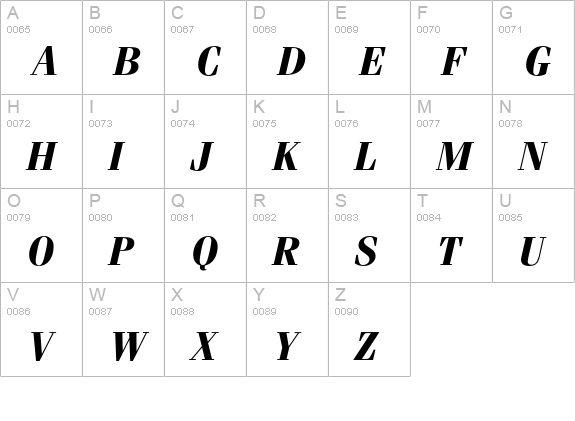
Fenice* Bold Italic is a strong, high-contrast, italic variant in the Fenice* typeface family \xE2\x80\x94 well suited to headlines, attention-grabbing titles, and strong calls-to-action.
Fenice Bold Italic font is a stylish and contemporary typeface that combines the elegance of italic styling with the boldness of its weight. Its sleek and modern design makes it a versatile choice for various design projects, from branding to editorial work. The unique curves and sharp angles of Fenice Bold Italic add a touch of sophistication and flair to any text. Best of all, Fenice Bold Italic font is available for free download at FontsMarket.com. This means you can easily access this high-quality typeface and use it in your projects without any cost. Whether you're a professional designer or a hobbyist looking to enhance your creations, Fenice Bold Italic font is a fantastic choice that won't break the bank. Download it today and elevate your designs with this eye-catching and contemporary typeface.